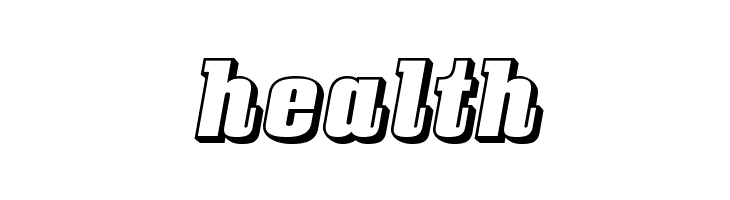
A modern, light, and slightly slanted font with a clean and elegant design.
A bold, three-dimensional font with a dynamic, shadowed style.
A bold, decorative font with a dotted pattern, ideal for vibrant and playful designs.
A playful and whimsical font with dynamic curves and sharp edges.
A modern, geometric sans-serif font with a clean and professional look.
设计师偏爱 Quicksand-LightItalic, To love you., BullpenThreeD-Regular, BudmoJigglish-Regular and Andrea Karime Normal,因为其造型干净、适用范围广—— 从品牌识别到落地页、海报都能胜任。